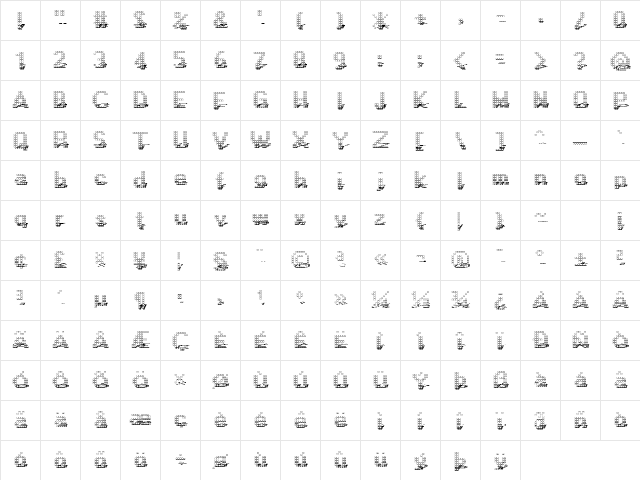
Display3DOTF Regular
| Foundry | Denis A Serikov |
| Designer | Denis A Serikov |
Design Context for Display3DOTF Typeface
Display3DOTF celebrates the constraints of early digital type, turning pixel geometry into a distinctive and immediately recognisable style.
Well-suited to indie game interfaces, retro computing aesthetics, and pixel art-adjacent design work.
Pro Tip: Use Display3DOTF at sizes that align with its pixel grid for the sharpest rendering — scaling to non-integer multiples can introduce unwanted blur.